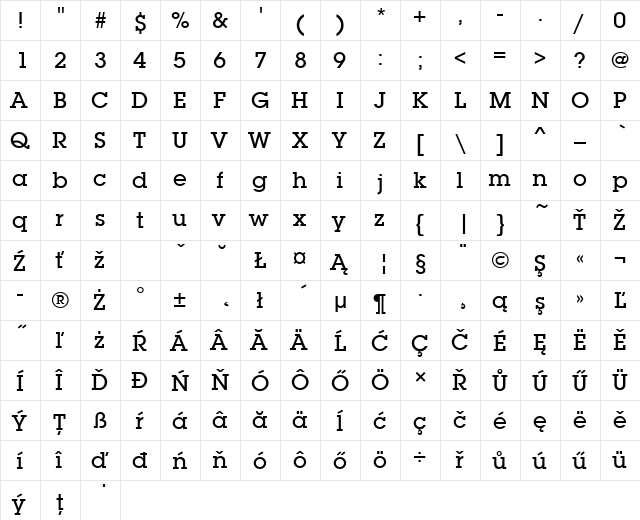
LubalinGraItcTEEMed Regular Font Preview
LubalinGraItcTEEMed Regular
Design Context for LubalinGraItcTEEMed Typeface
LubalinGraItcTEEMed takes a measured approach to typography — its balanced proportions and neutral character make it a reliable workhorse for both digital and print work.